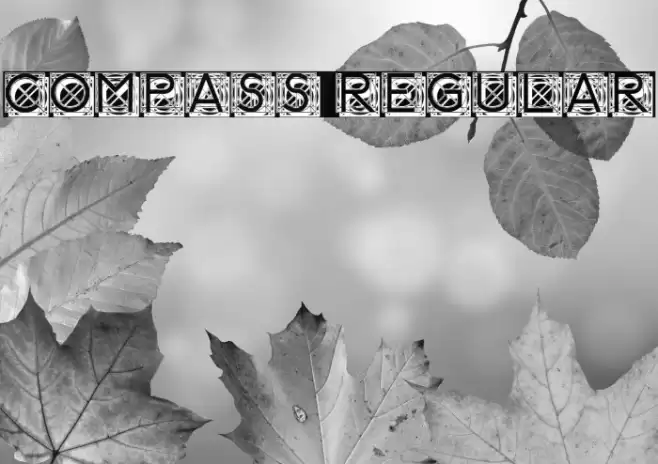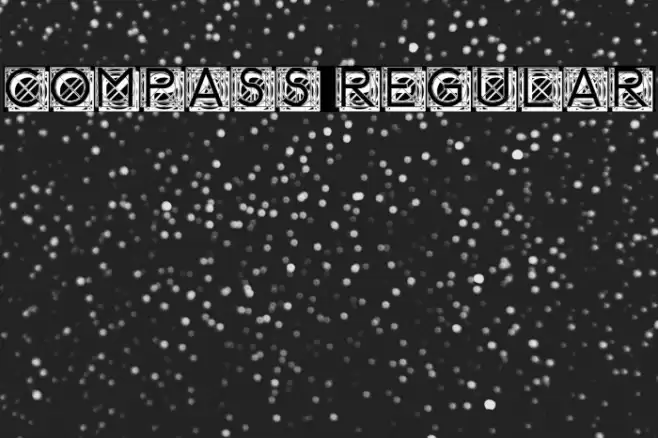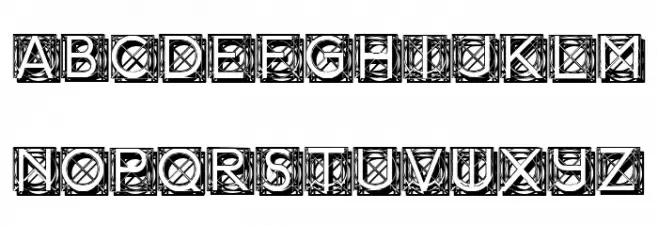
Compass Regular Font
Compass Regular Description
This font features a highly decorative and intricate design, with each character enclosed in a square frame filled with complex geometric patterns. The letters are bold and capitalized, with a strong emphasis on symmetry and detail. The design is reminiscent of stained glass or ornate architectural elements, making it visually striking and unique. The high contrast between the thick black lines and the white spaces within the characters enhances its decorative appeal. This font is best suited for projects that require a bold statement or an artistic touch.
A decorative font with intricate geometric patterns and bold, framed letters from Uncategorized fonts.
- Proposed Projects: Ideal for artistic posters, album covers, branding for luxury products, or any project needing a bold, decorative touch.